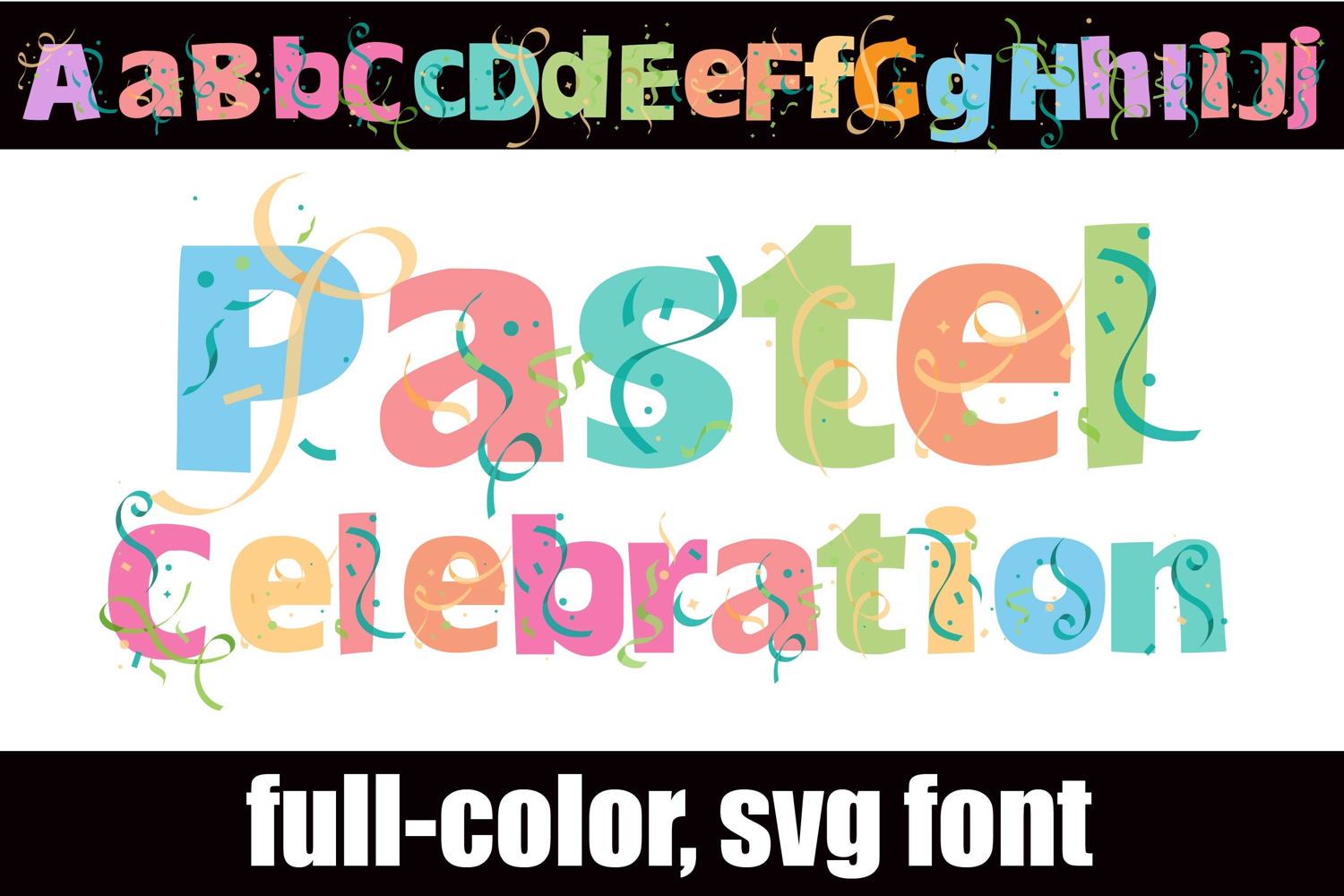
Pastel Celebrations Color Font
This full-color, serif is in a pastel color palette and sports confetti throughout. There is an alt case of additional colors of each letter that you can access through your system's character map.